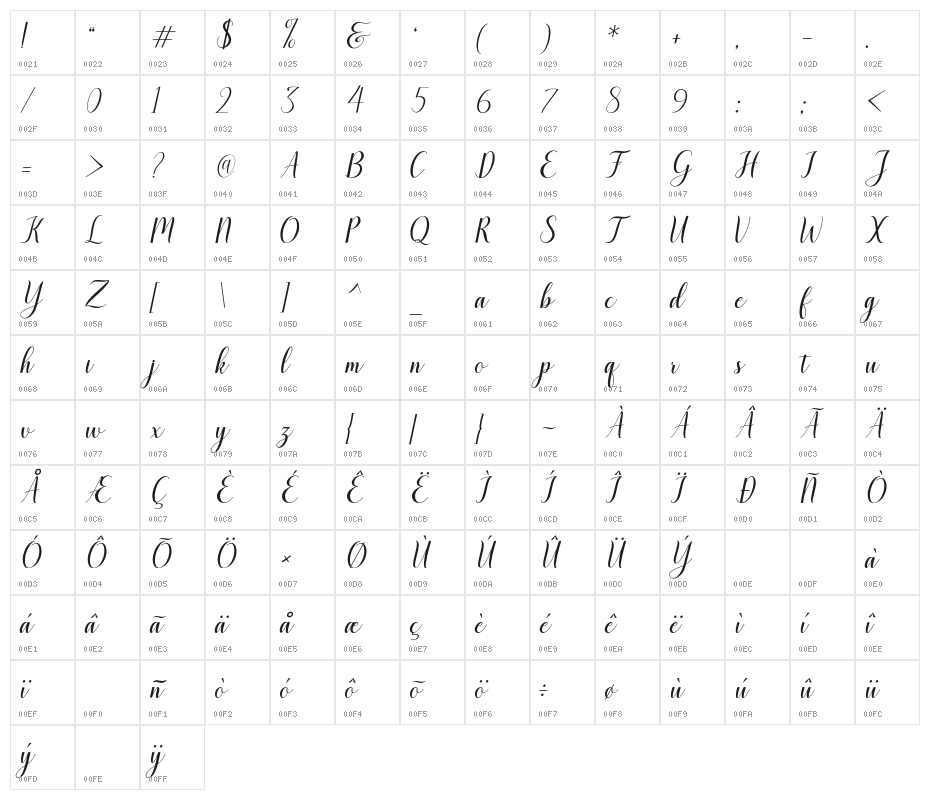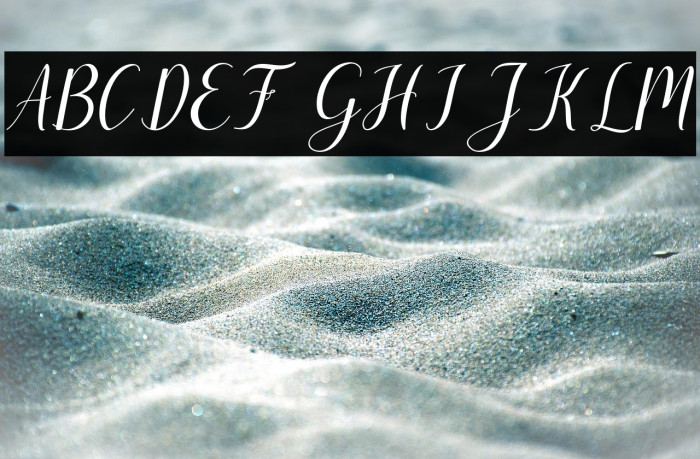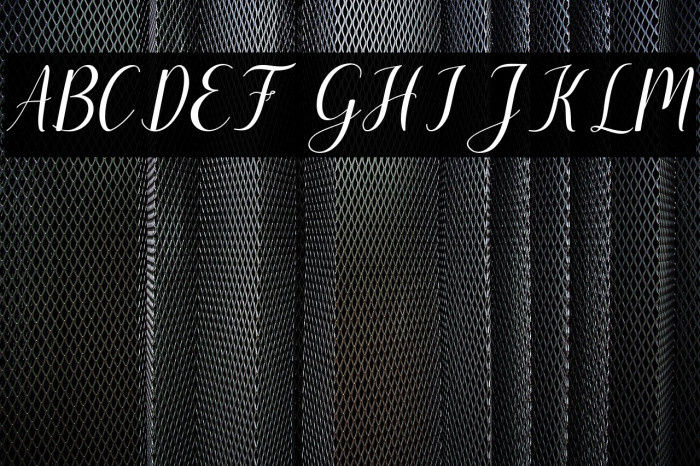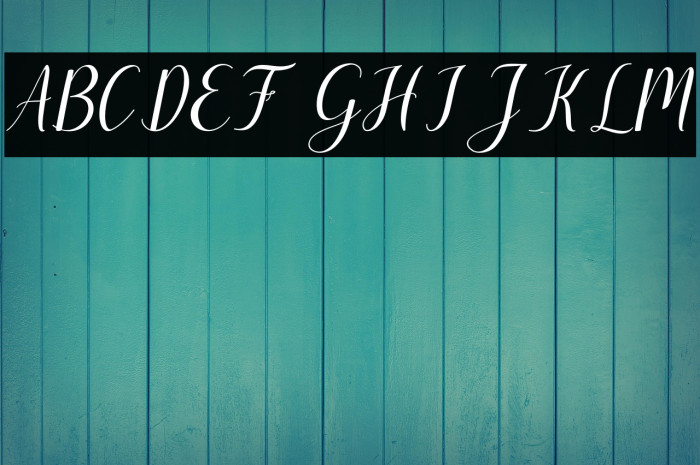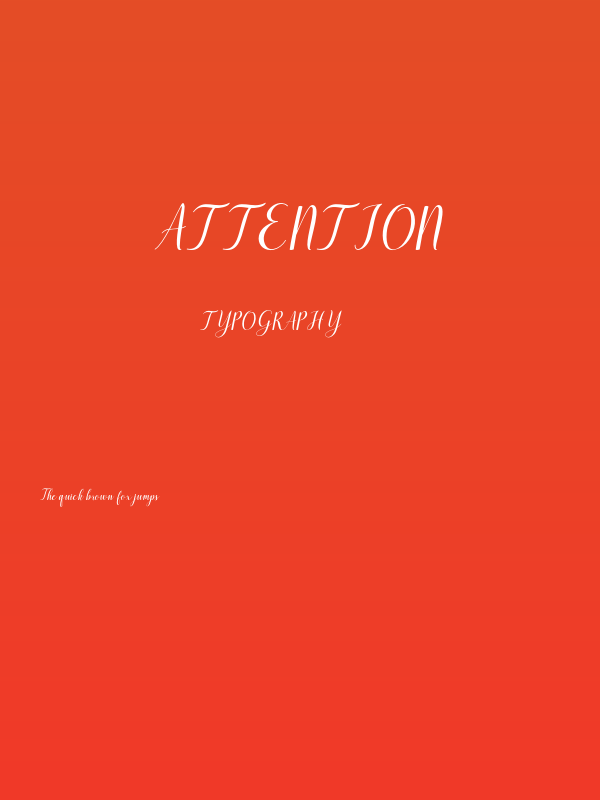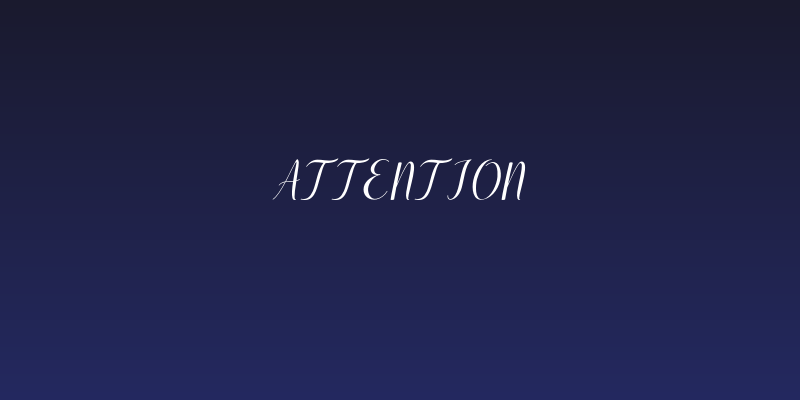
attention Font
attention Description
This font exudes elegance and sophistication with its flowing, cursive style. The characters are gracefully connected, creating a seamless and fluid appearance. The uppercase letters are tall and slender, while the lowercase letters maintain a consistent rhythm, enhancing readability. The numerals are stylishly curved, complementing the overall aesthetic. Special characters are designed with flair, adding a touch of creativity. The font's delicate strokes and smooth curves make it ideal for projects that require a touch of class and refinement.
| Proposed Projects | Ideal for wedding invitations, elegant branding, greeting cards, and luxury packaging. |